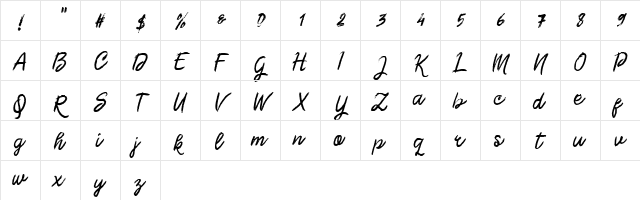
Complete Morgan Chalk glyph index. Displaying only characters natively supported by Morgan Chalk font.
Morgan Chalk is a composed and adaptable typeface that performs quietly and consistently across a wide range of design contexts.